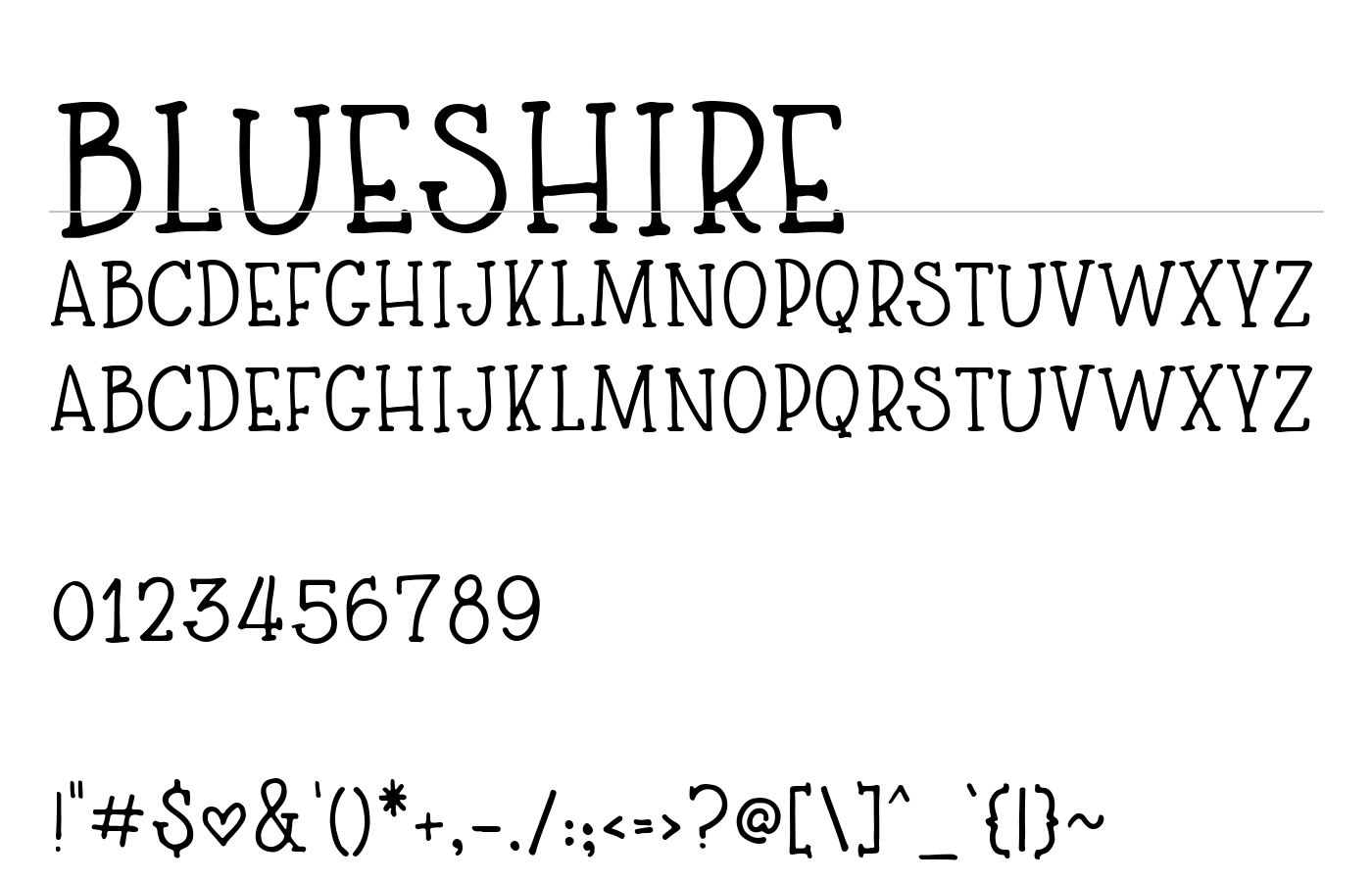
Blueshire is a playful and whimsical serif font with a hand-drawn feel, featuring irregular shapes and slightly uneven strokes that add charm and personality. Its tall, narrow letterforms combined with thin serifs and moderate contrast make it ideal for creative and friendly designs, especially in headlines, packaging, and casual branding where a warm, approachable vibe is desired. This font works well for projects that want to convey uniqueness and creativity without losing readability.
Blueshire Font